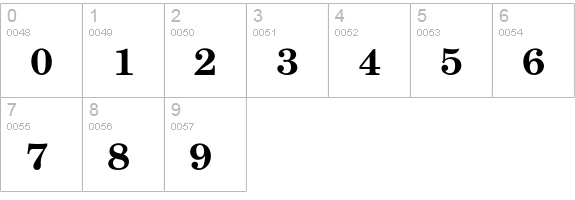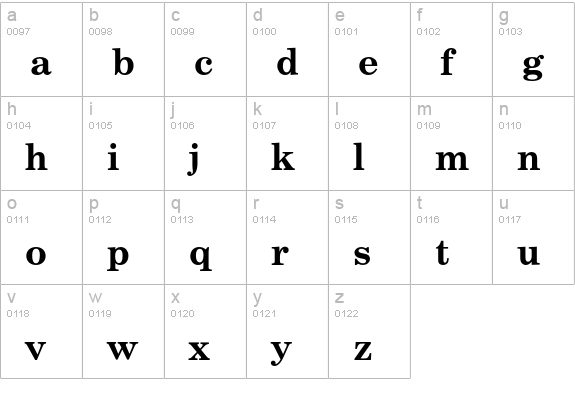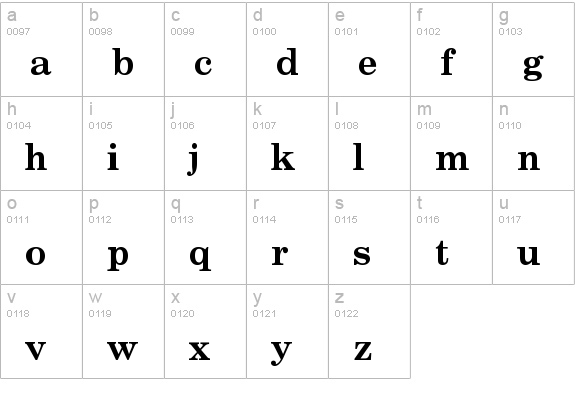
CenturySchoolbookEF-Bol Font Details
CenturySchoolbookEF-Bol is a timeless and sophisticated font that exudes elegance and professionalism. With its bold weight, this font is perfect for making a bold statement in your designs. Whether you are creating a brochure, poster, or invitation, CenturySchoolbookEF-Bol adds a touch of class and sophistication. The best part? CenturySchoolbookEF-Bol is available for free download at FontsMarket.com. This means you can easily access this beautiful font and use it in your projects without any cost. Don't miss out on the opportunity to enhance your designs with the classic charm of CenturySchoolbookEF-Bol. Download it today and elevate your creations to the next level.